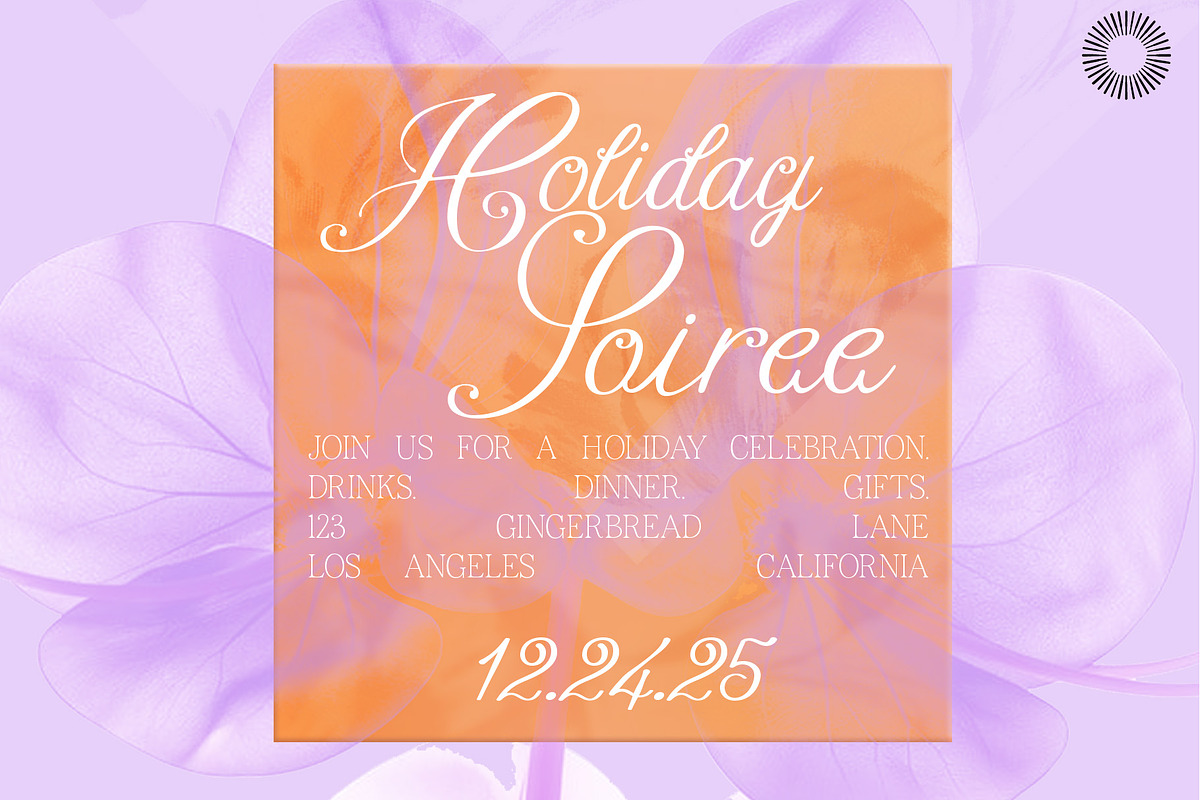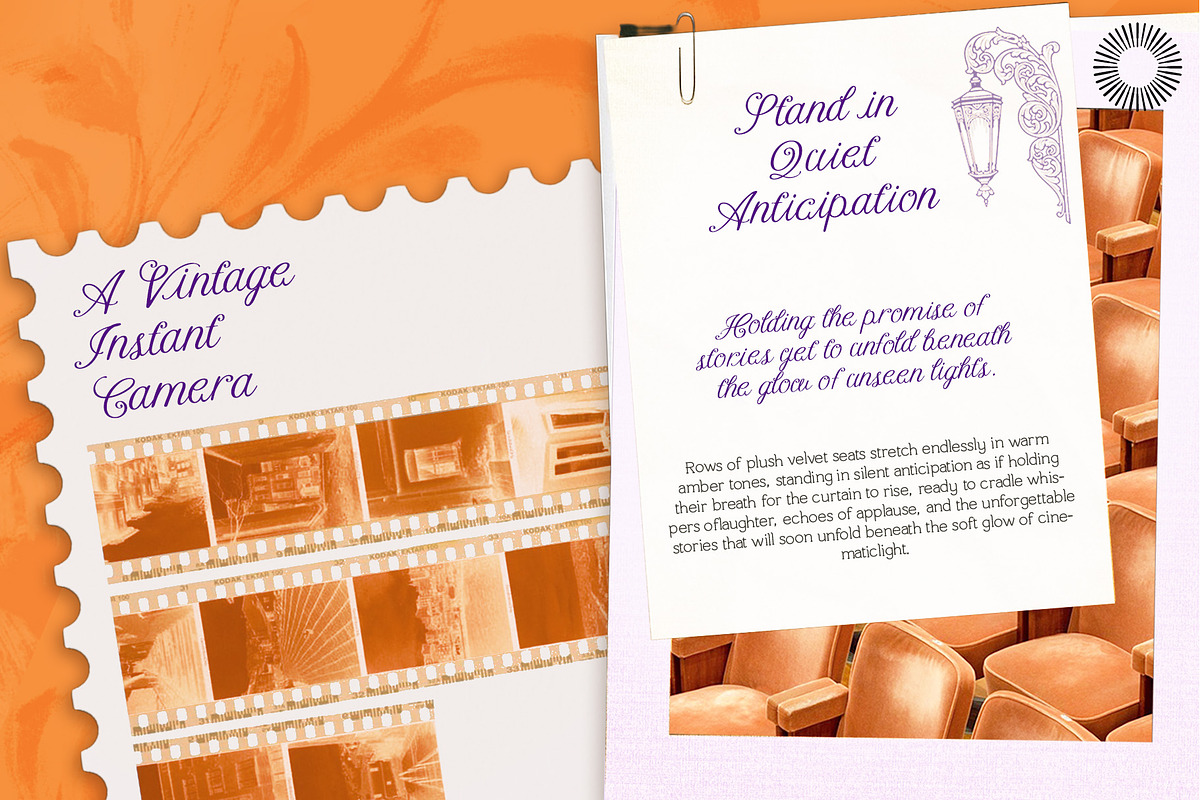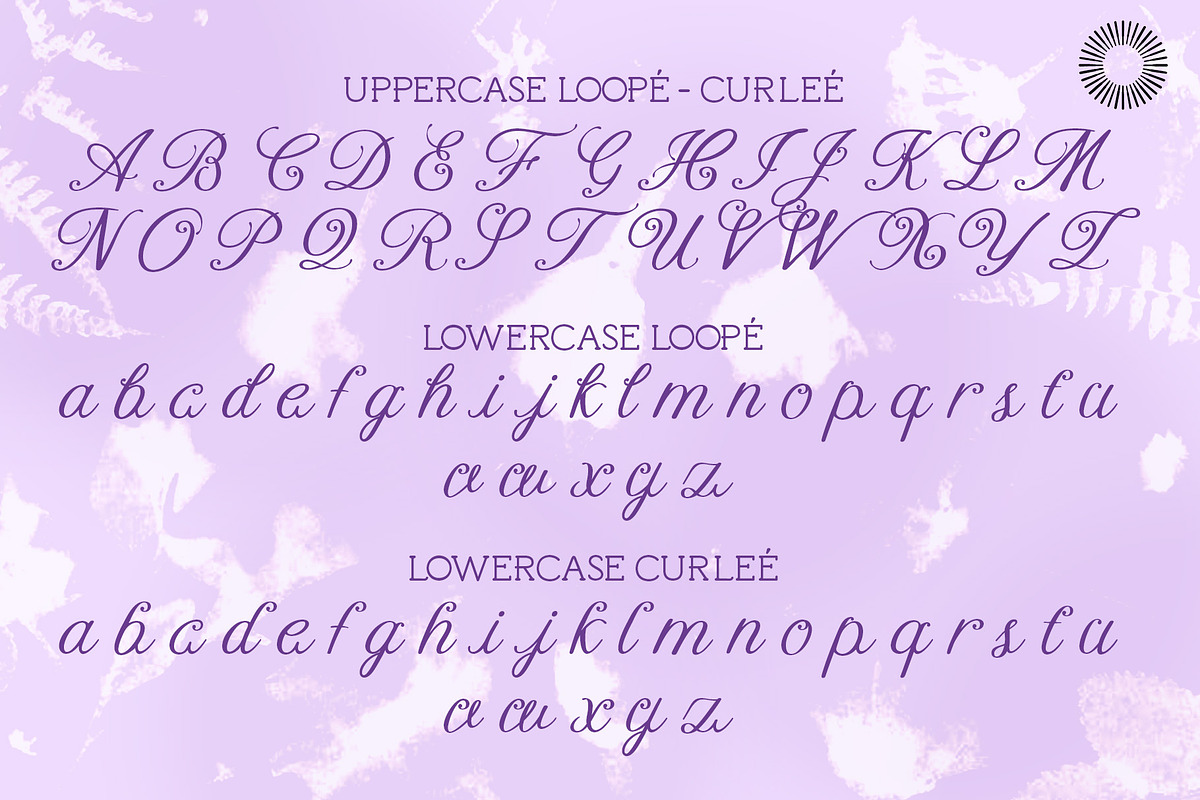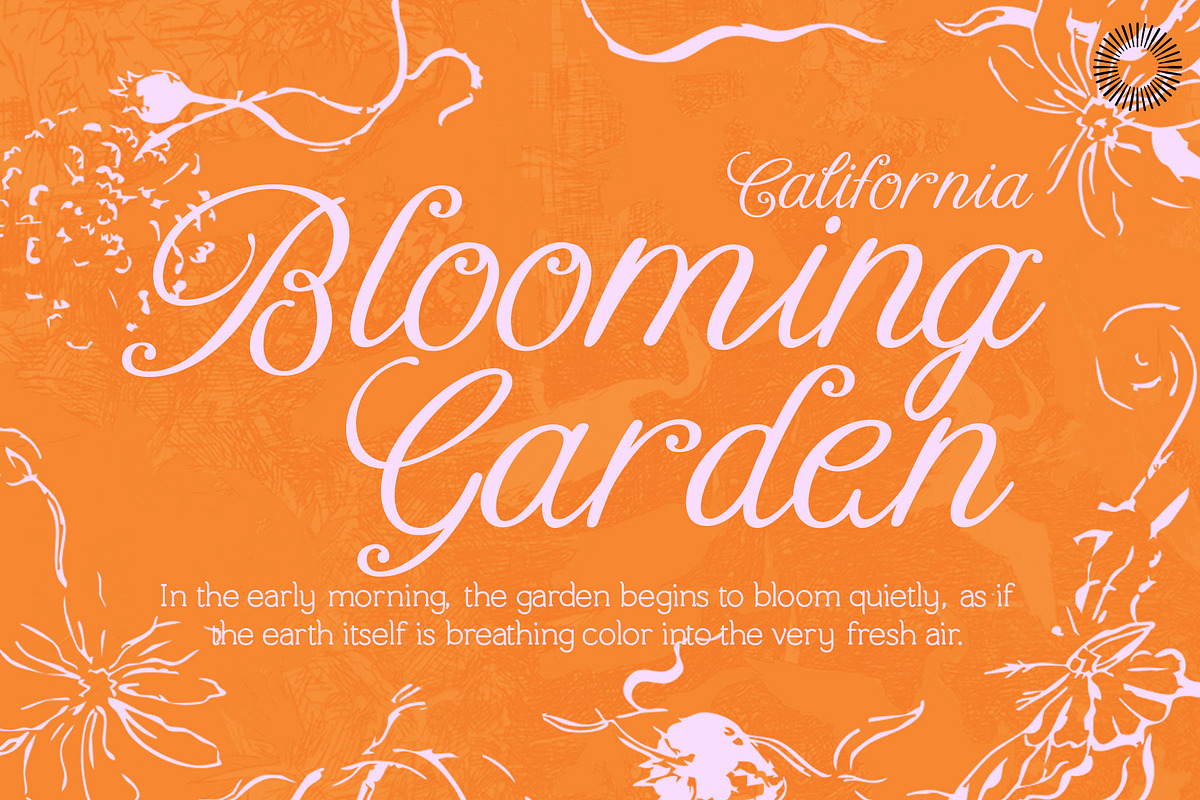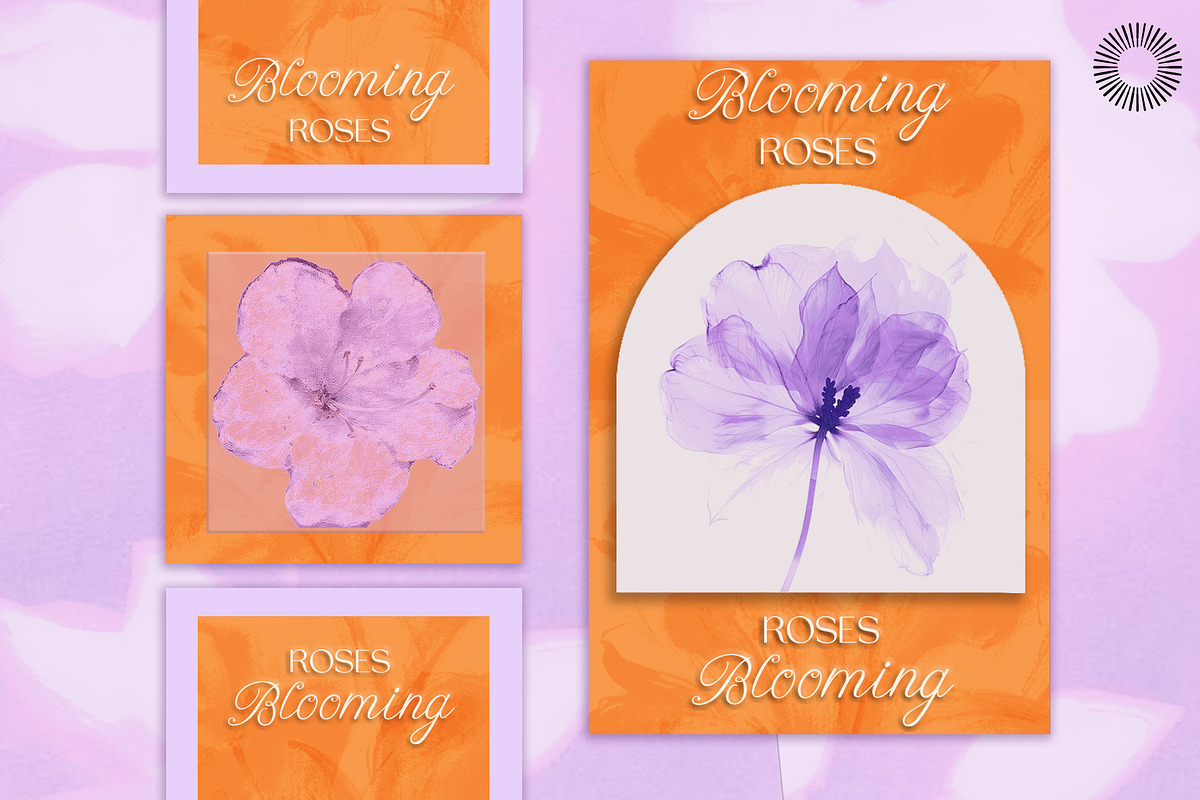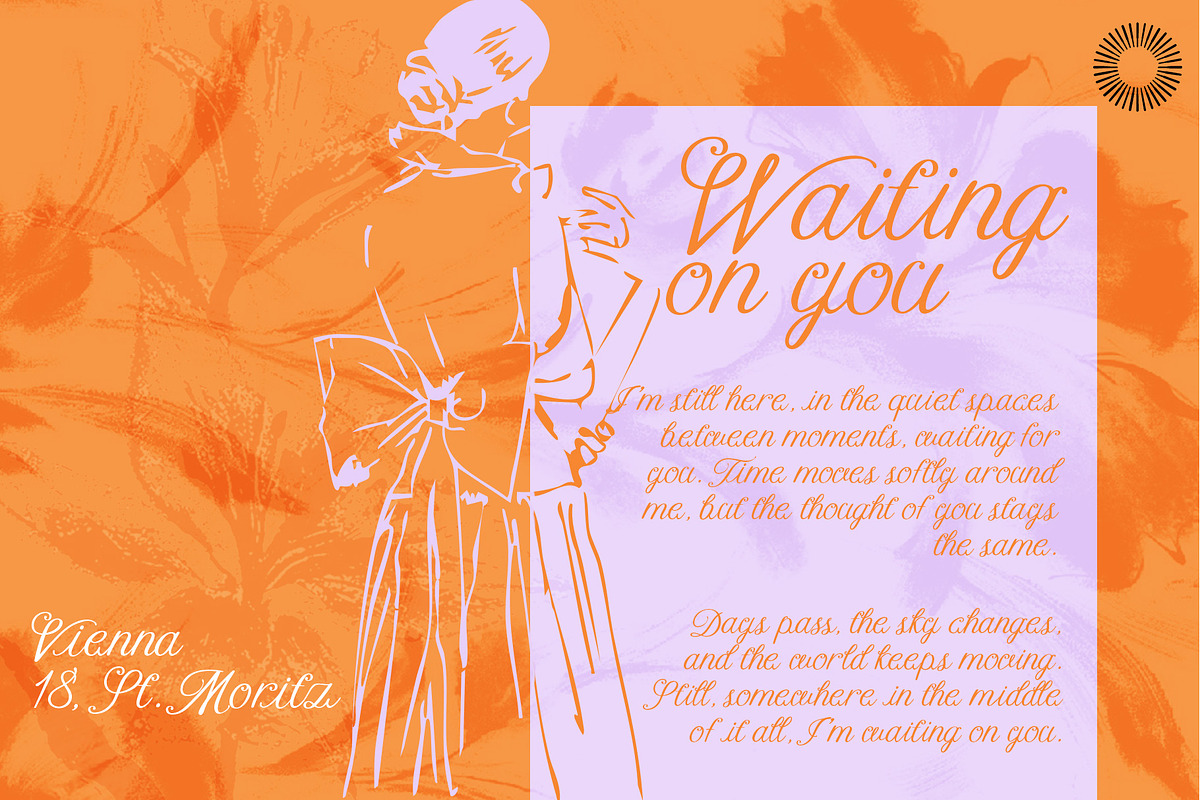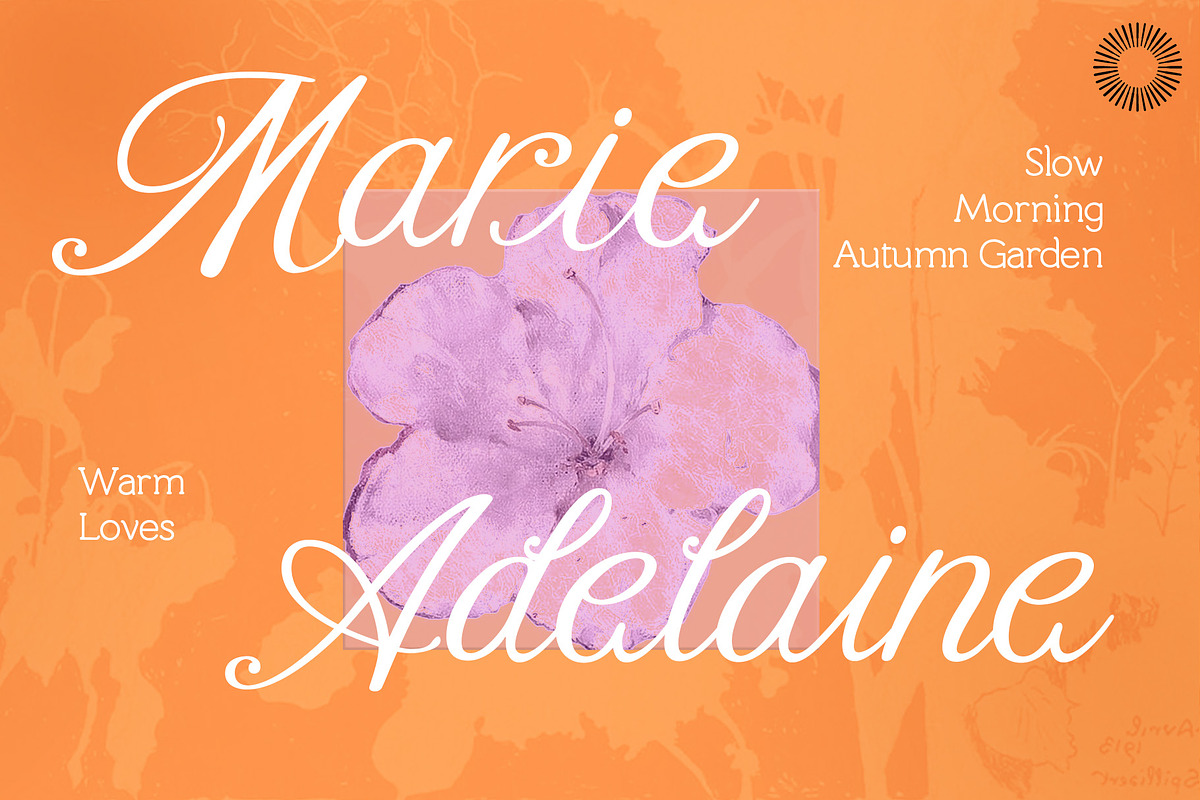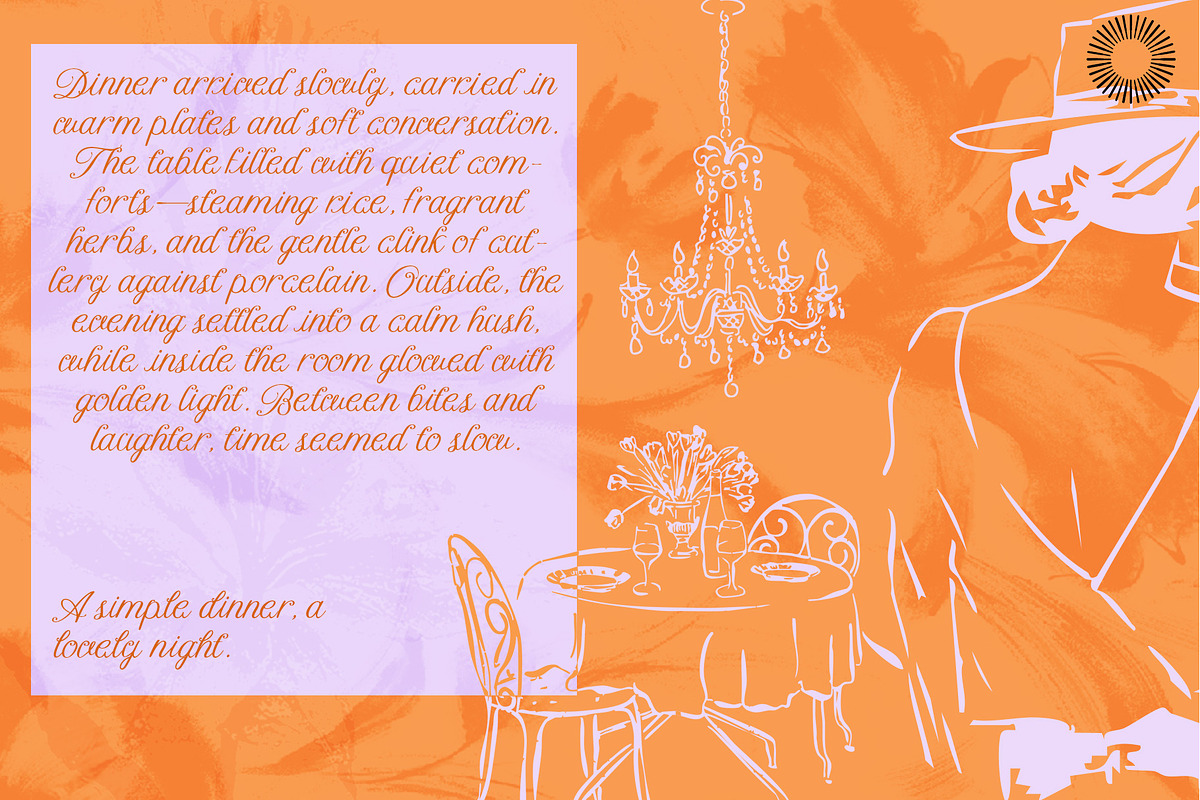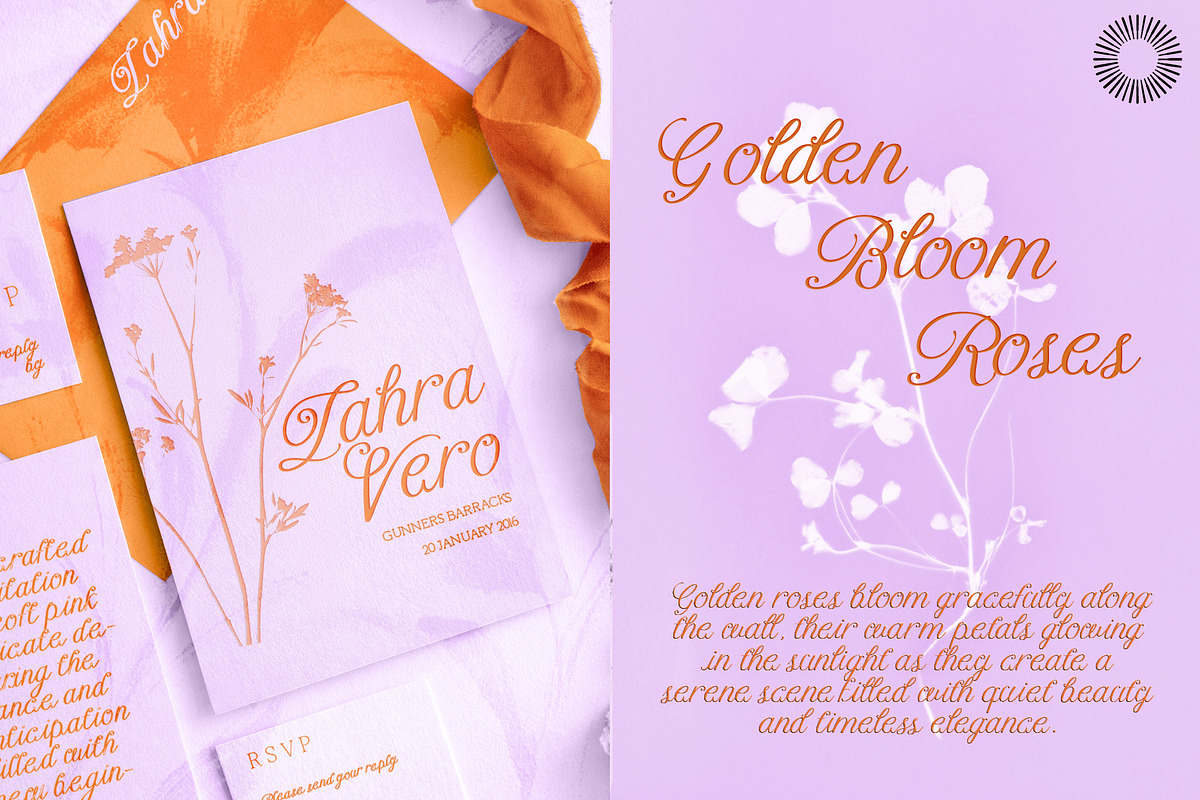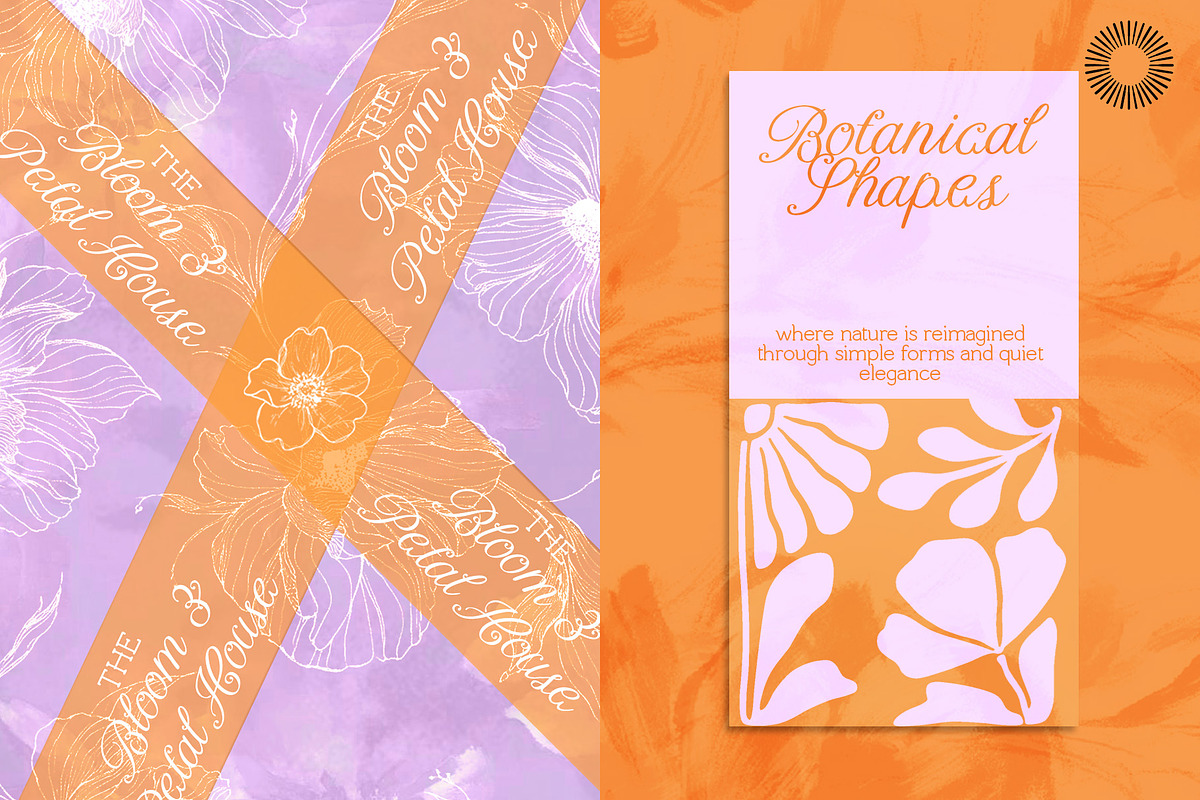
Blushy Kiss - Handmade Script
Blushy Kiss is a sweet and playful curly script font, designed to bring a soft, romantic, and cheerful personality into your designs. With its flowing strokes, bouncy baseline, and charming loops, this font feels like a gentle kiss light, feminine, and full of warmth. Each letter is carefully crafted with smooth curves and elegant swashes, making it perfect for designs that need a touch of cuteness without losing readability. The natural rhythm of the strokes creates a lively handwritten feel, ideal for expressive and emotional visuals. Blushy Kiss comes with a collection of beautiful alternates and ligatures, allowing you to create seamless, stylish lettering with ease. Whether you want something more curly or slightly simpler, you can mix and match to get your perfect look.
- Branding & logo design
- Wedding invitations
- Packaging & labels
- Social media content
- Quotes & typography posters
- Feminine and lifestyle projects
- Smooth and easy-to-use script flow
- Bring a soft, flirty, and adorable touch to your work with Blushy Kiss ✨